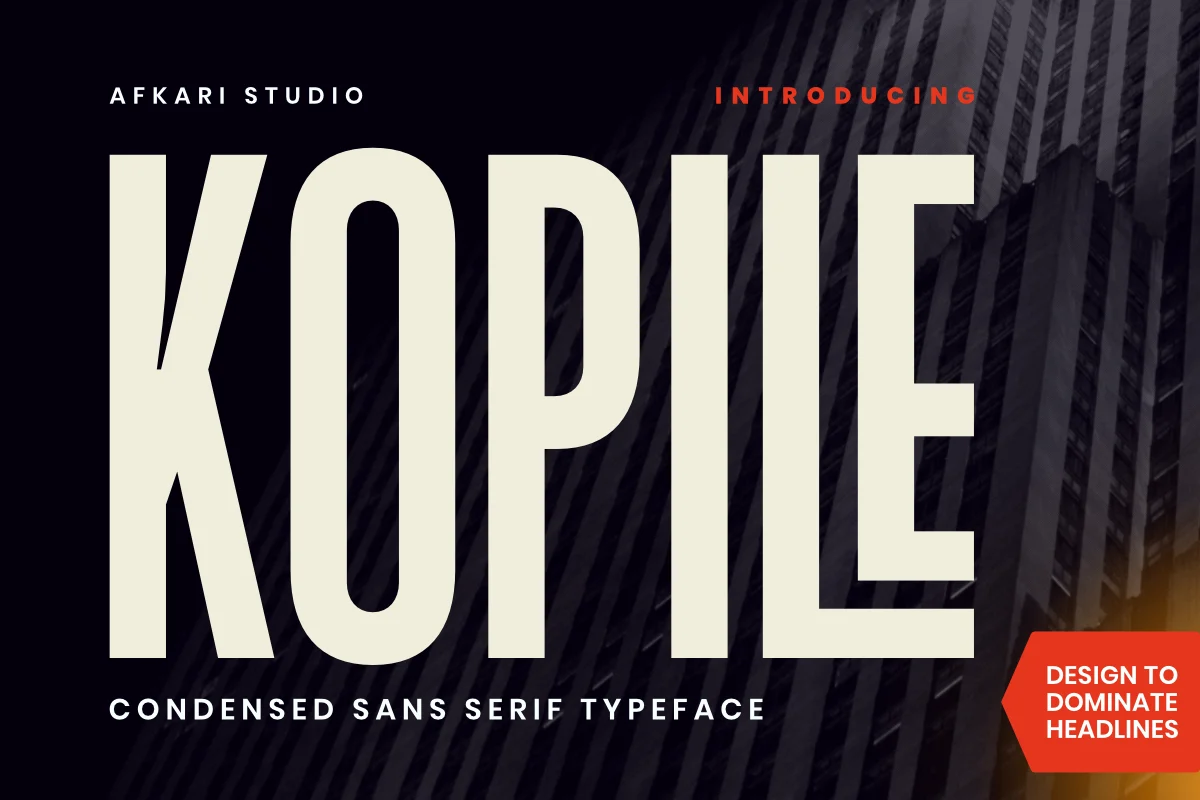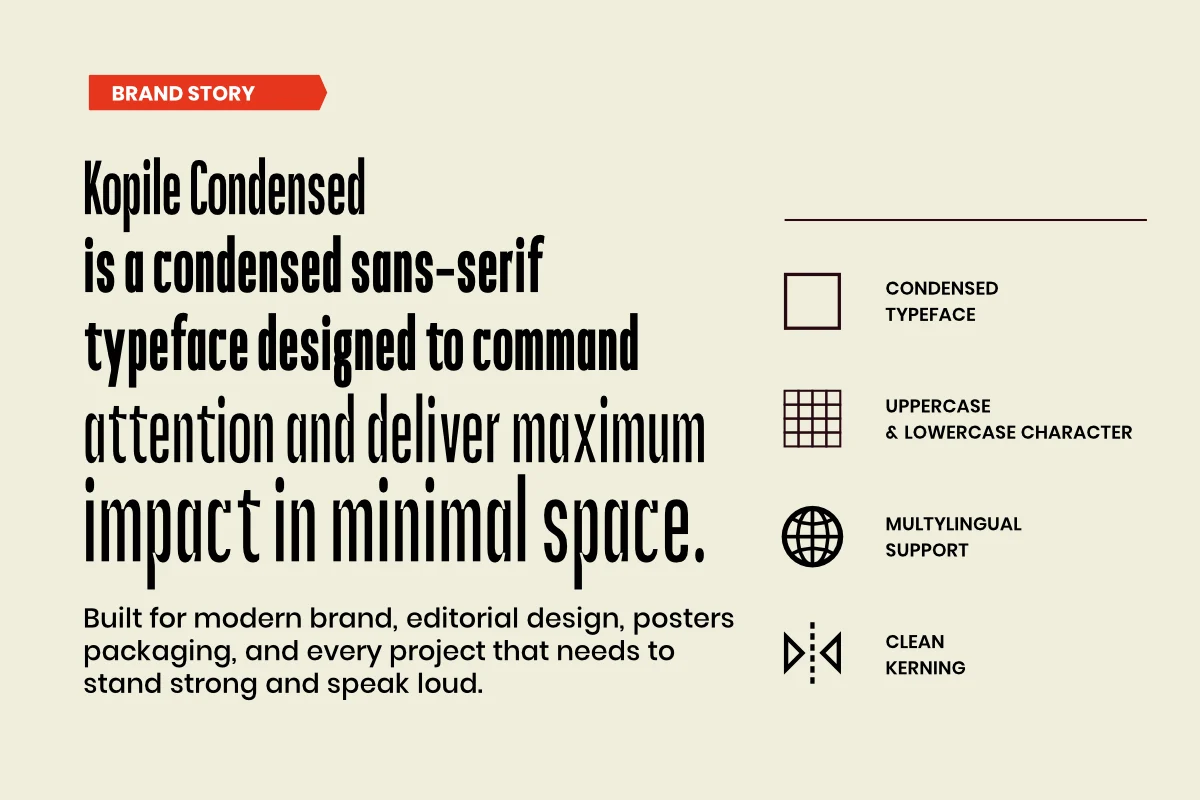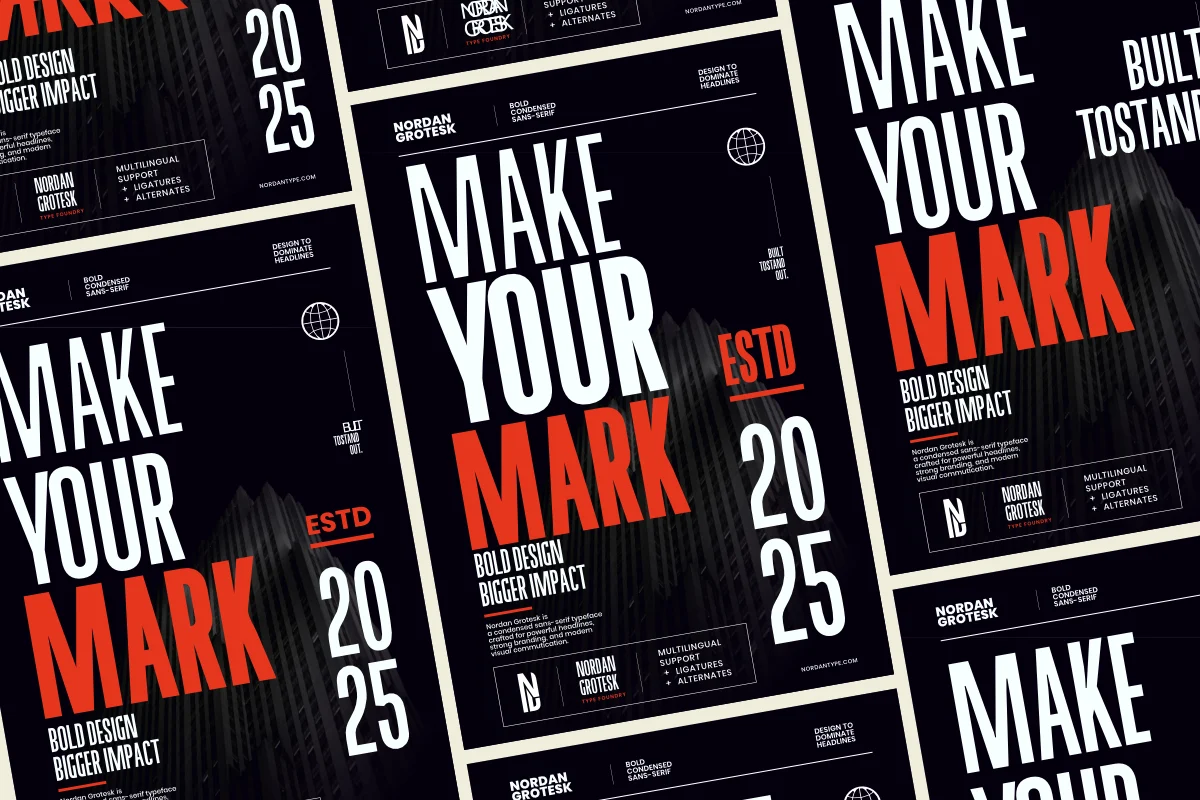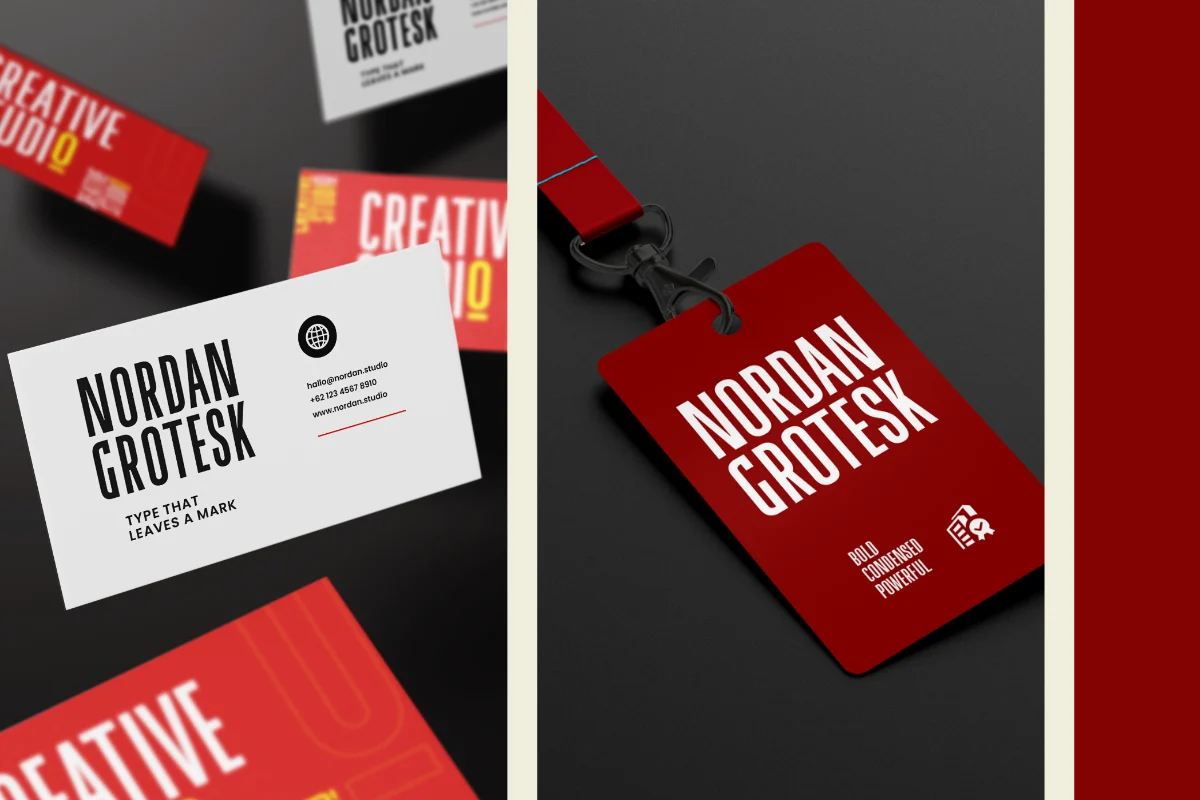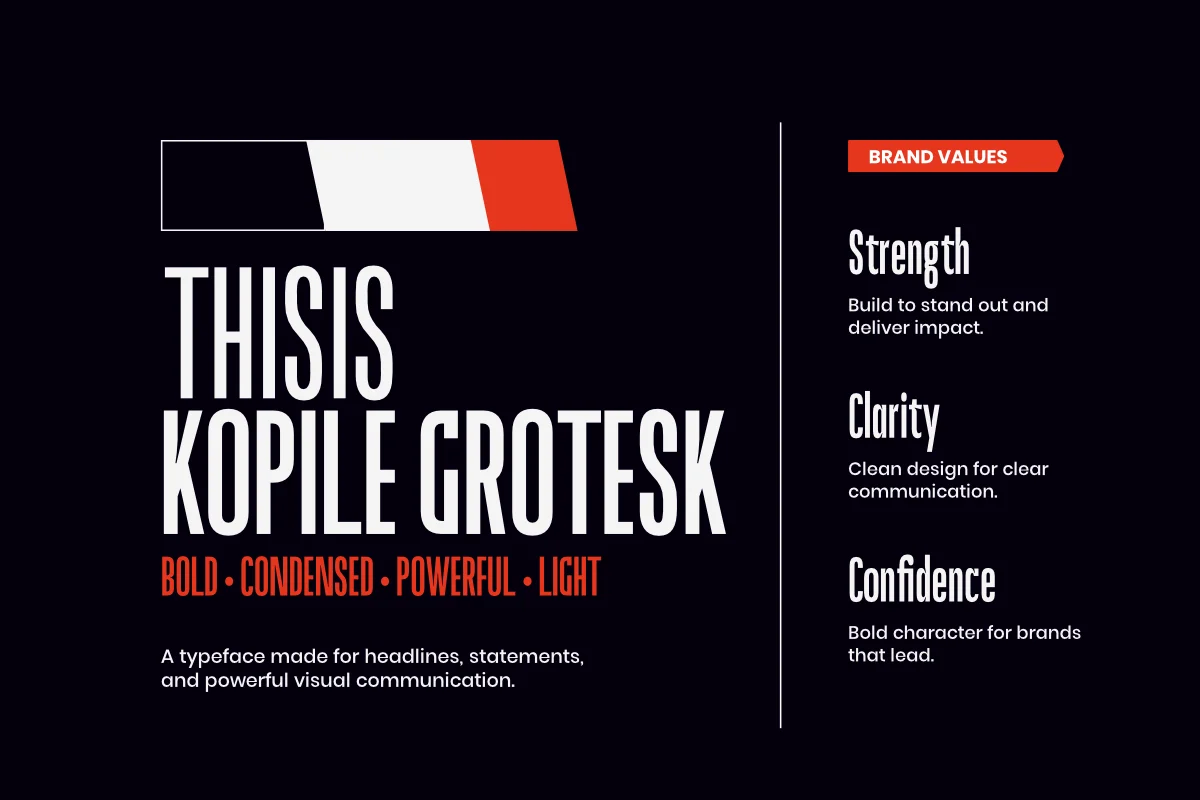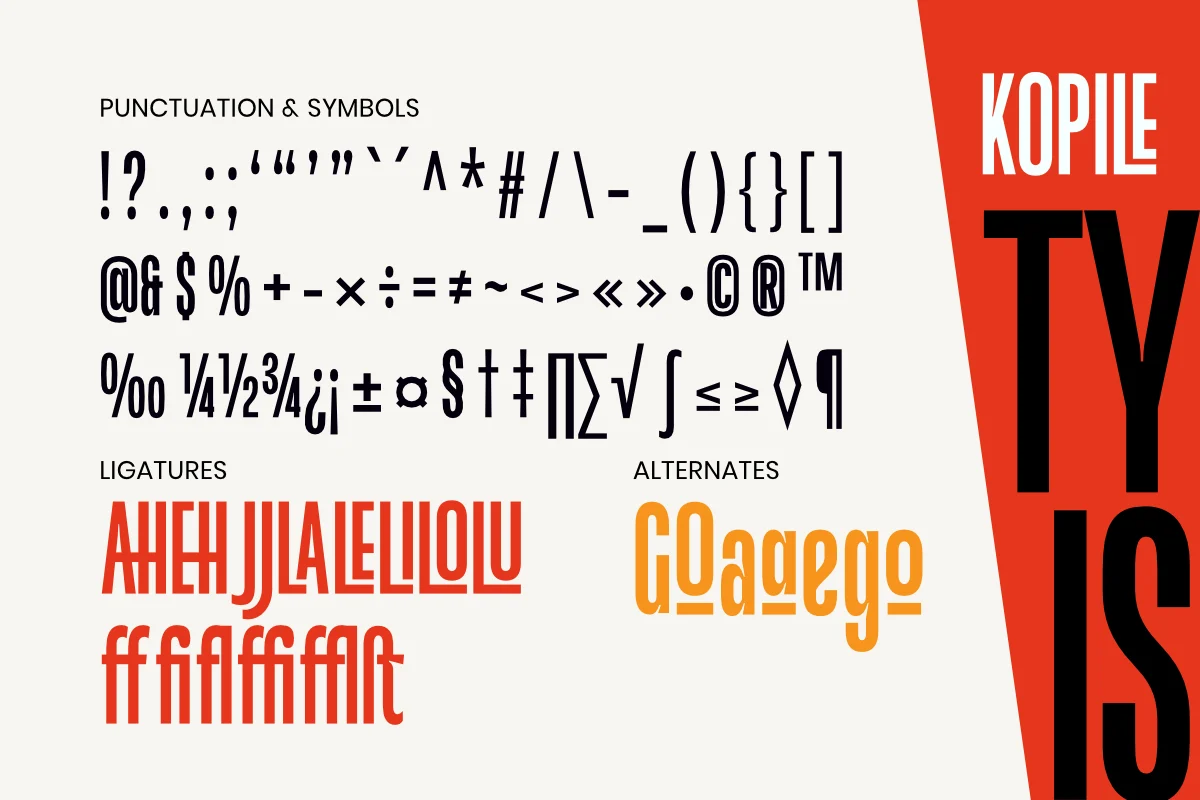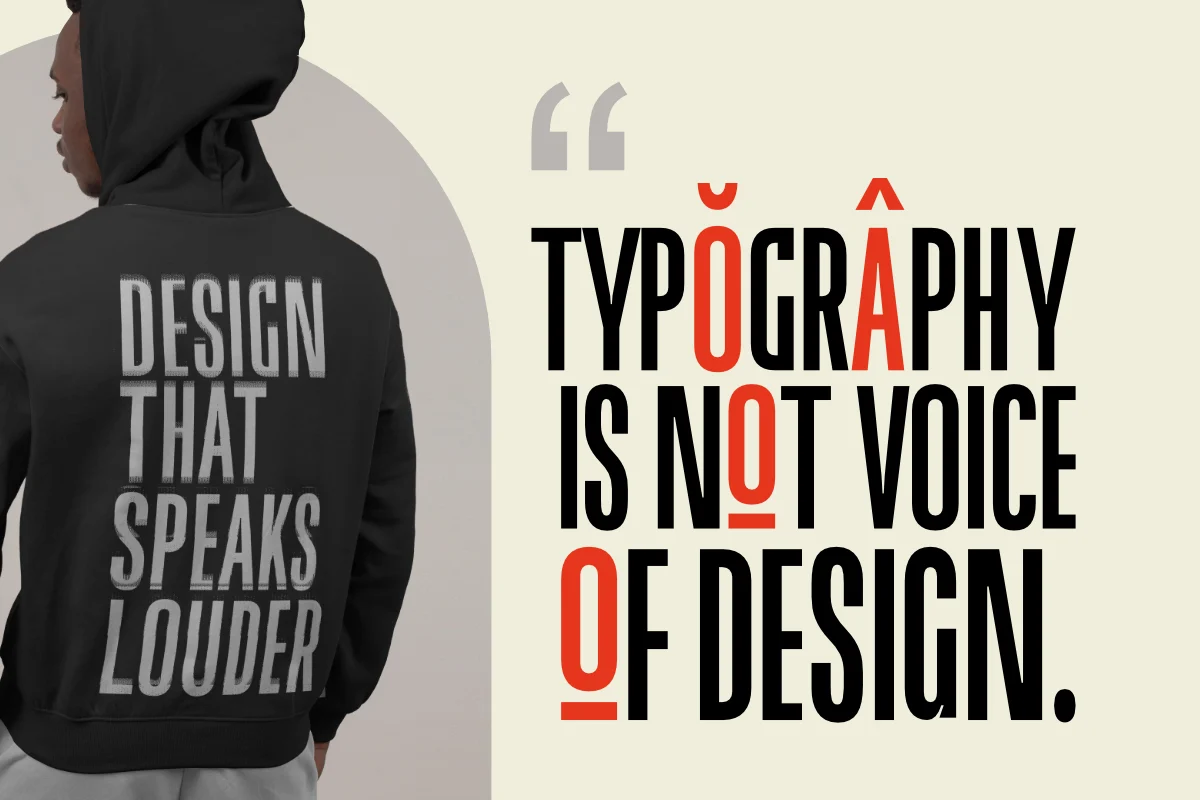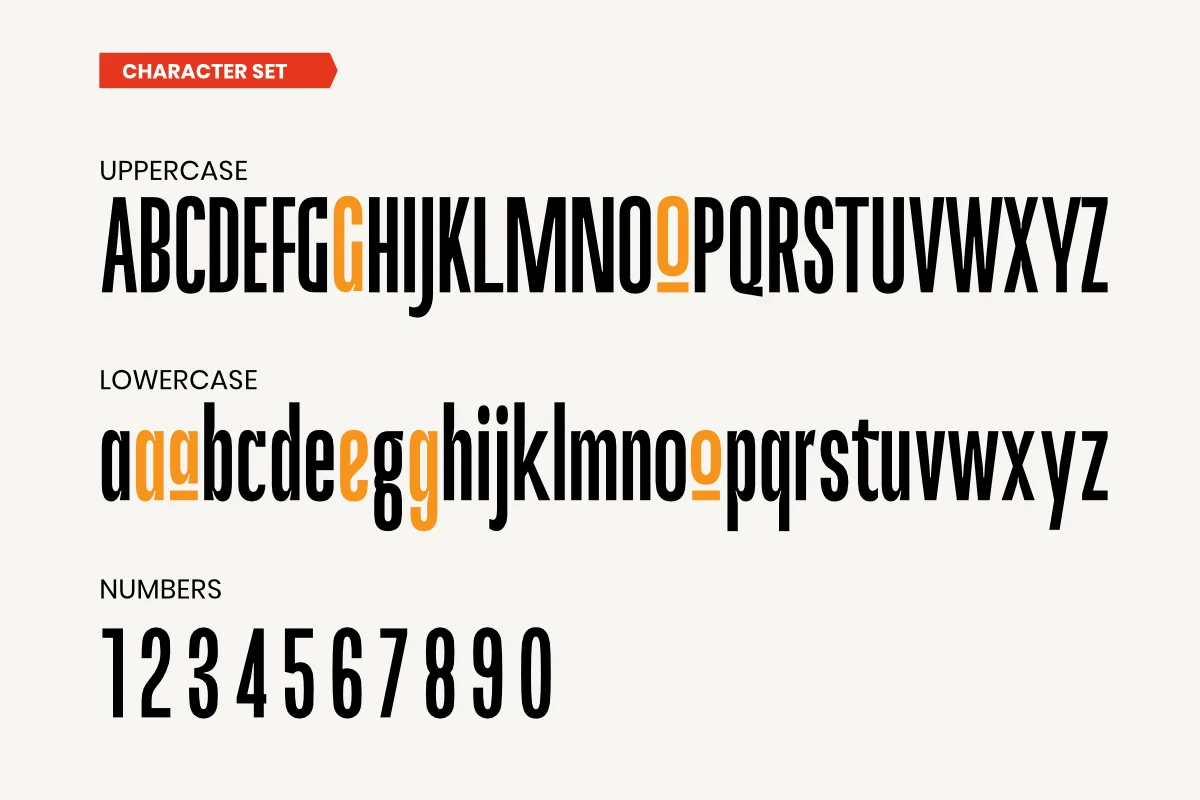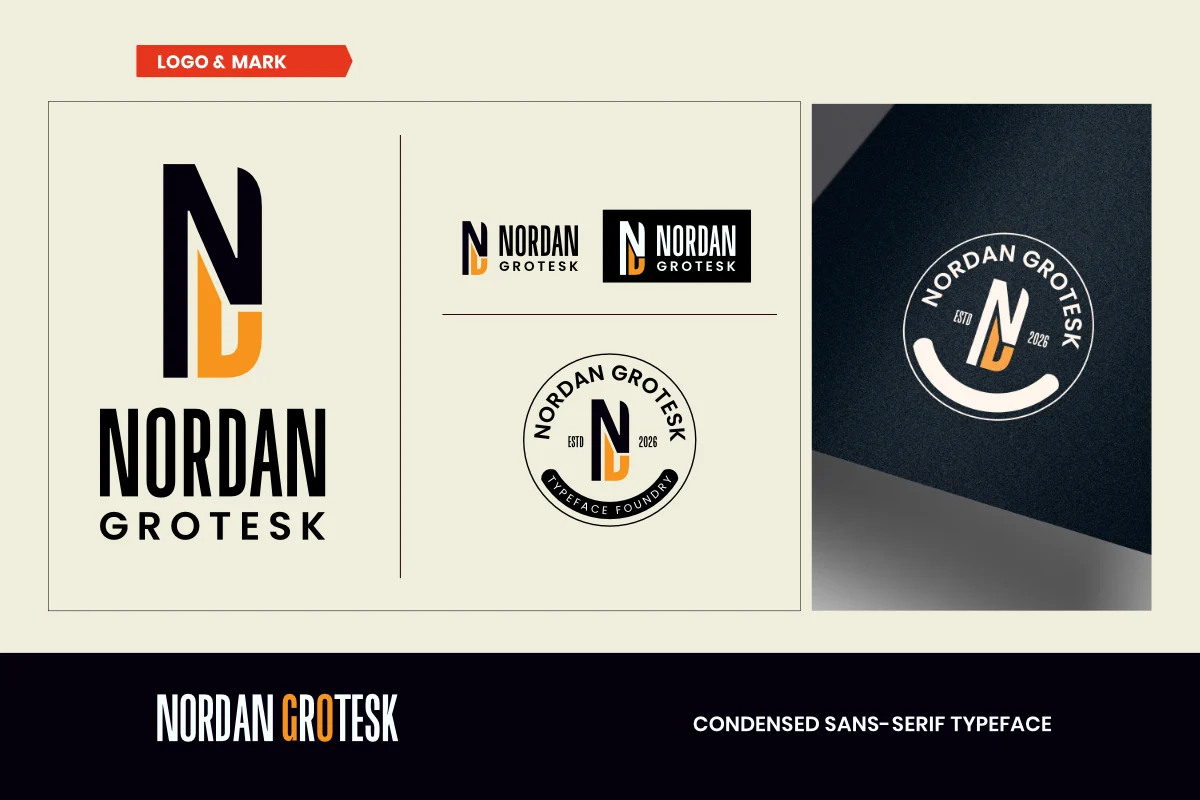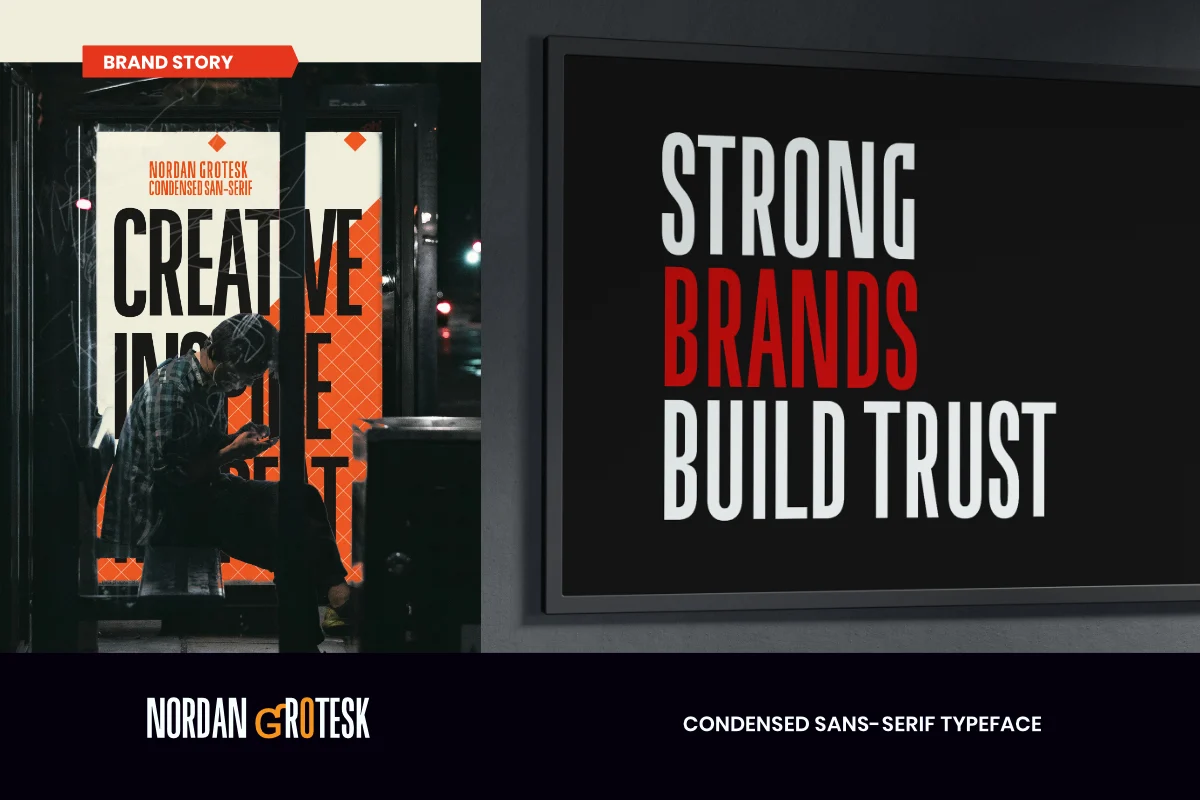
Kopile is a modern condensed sans serif typeface made for creators who want strong visual impact and clean readability. Its sleek structure and geometric proportions create a professional and contemporary look for many design projects.
Built with a narrow and balanced design, Kopile helps maximize space without losing clarity. The font feels bold, efficient, and highly readable. It works perfectly for headlines, logos, posters, packaging, editorial layouts, and social media graphics.
Kopile includes Light, Regular, and Bold styles. These three weights give designers more flexibility when building modern typography systems. You can create minimalist layouts, professional branding, or bold attention-grabbing titles with ease.
Each style is carefully crafted to work seamlessly together. This makes typography combinations feel clean, cohesive, and visually balanced across print and digital media.
With its modern appearance and versatile structure, Kopile is suitable for both corporate and creative projects. It works beautifully for fashion branding, tech visuals, advertising campaigns, magazines, and website design.
Highlighted Features
- 3 font styles: Light, Regular, and Bold
- Modern condensed sans serif design
- Complete set of uppercase and lowercase letters, numerals, and punctuation
- Clean geometric structure with excellent readability
- Multilingual support including characters such as ä, ö, ü, Ä, Ö, Ü, ß, ¿, and ¡
Upgrade your typography with Kopile—a modern condensed sans serif typeface designed to bring clean style, professional versatility, and strong visual impact to every creative project.